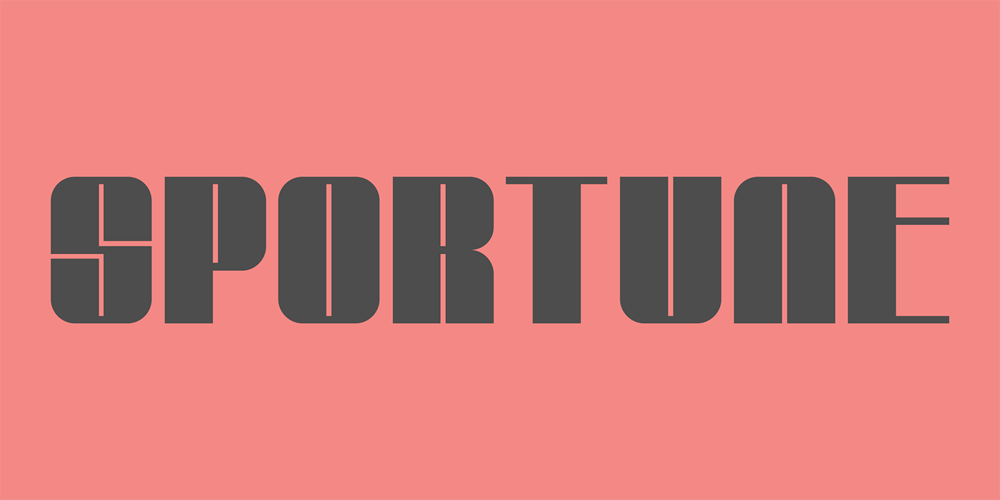
Sportune Font Family was designed by Raditya Putra Pratama and published by Raditya Type. Sportune contains 4 styles and family package options. Sportune is made to support the work of designers who are used to making works with a sporty style. This font is great for various design styles, modern or old school.